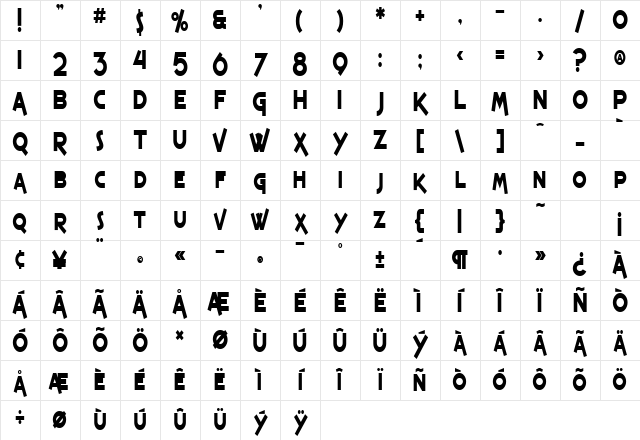
SF Espresso Shack Condensed Bold
Design Context for SF Espresso Shack Condensed
SF Espresso Shack Condensed is a composed and adaptable typeface that performs quietly and consistently across a wide range of design contexts. Its bold stroke weight gives it real presence on the page. Its narrow stance lets it pack a punch even in space-constrained designs.